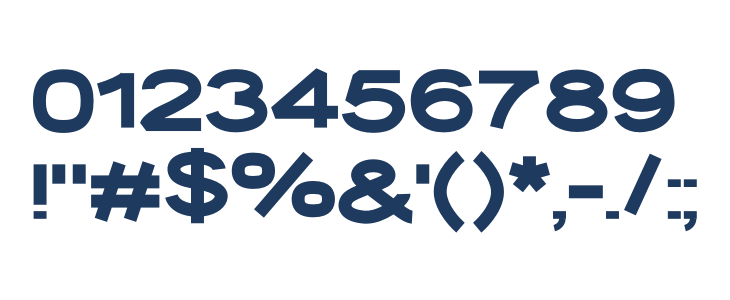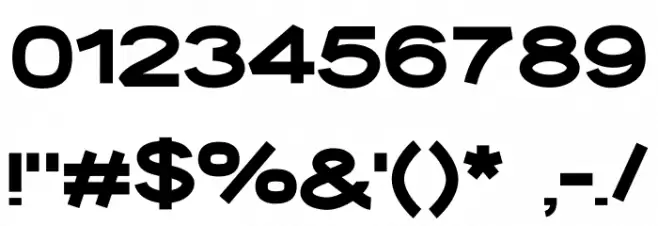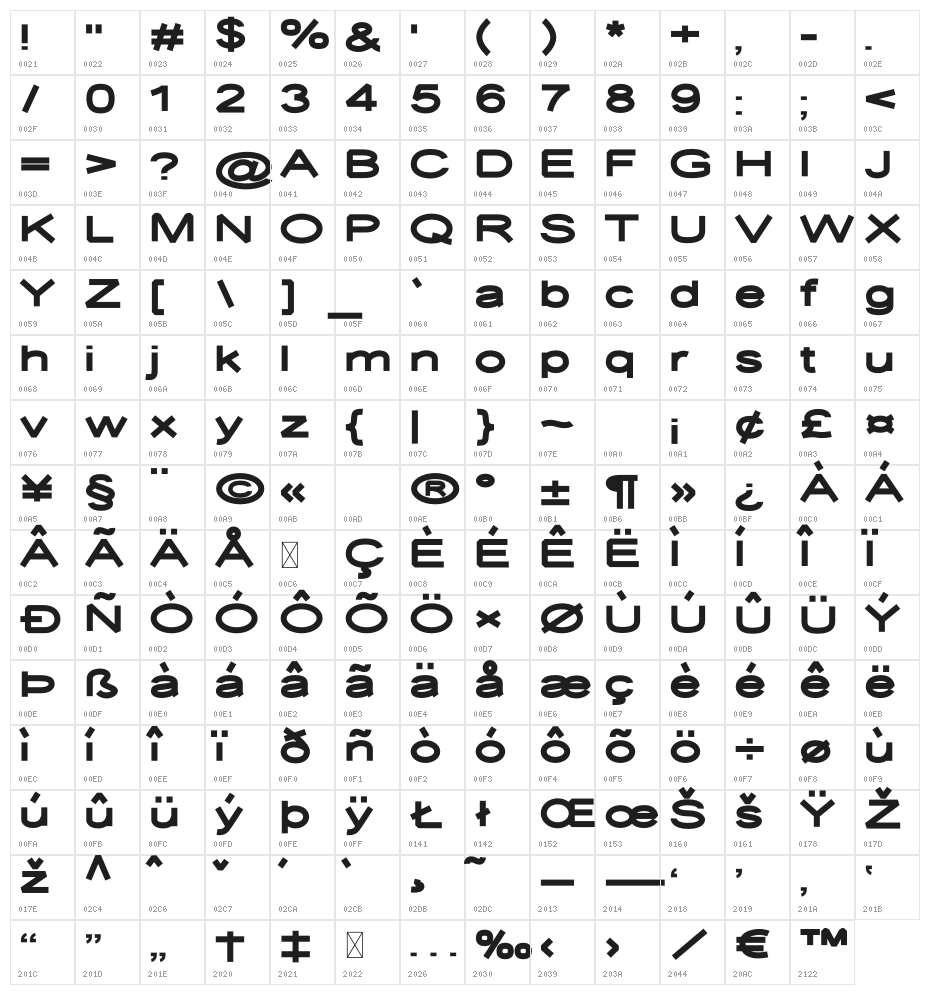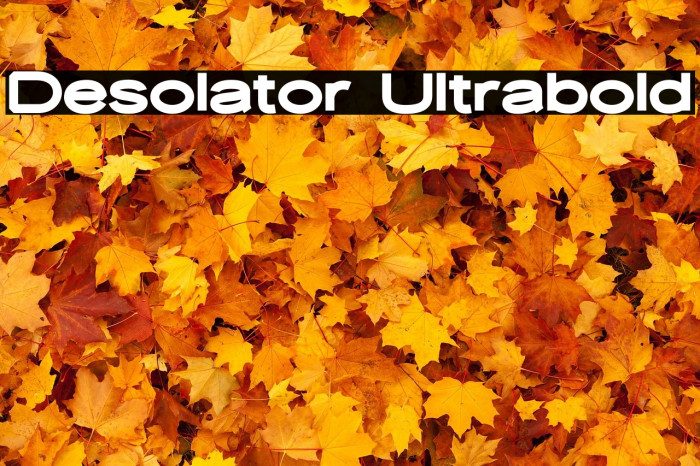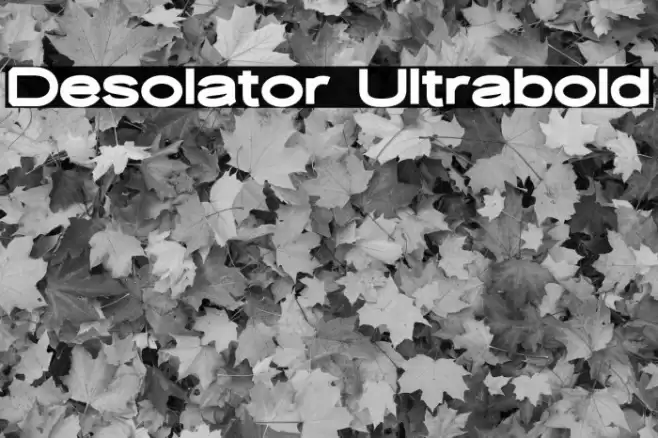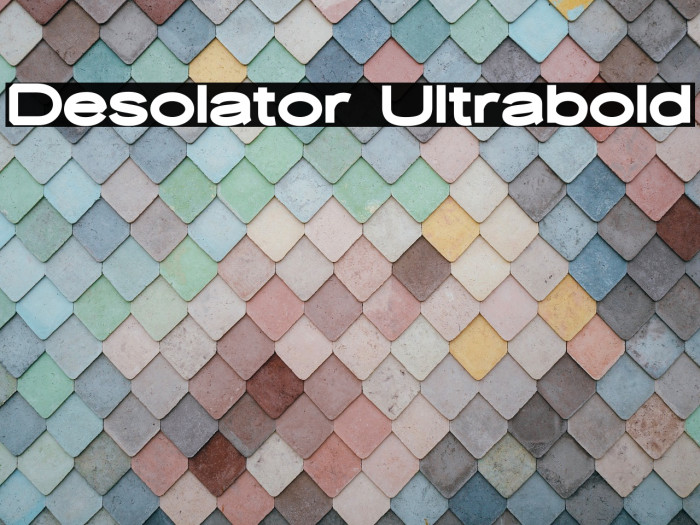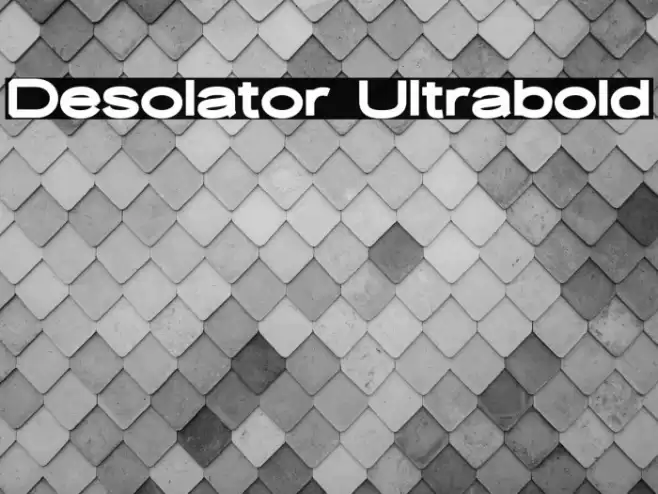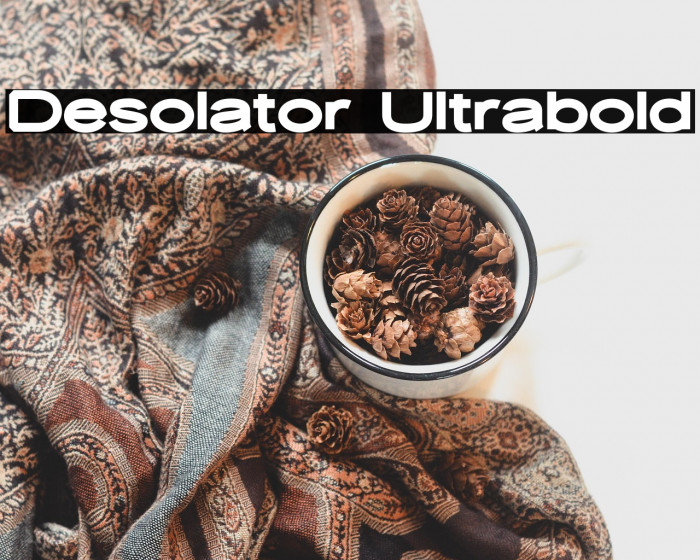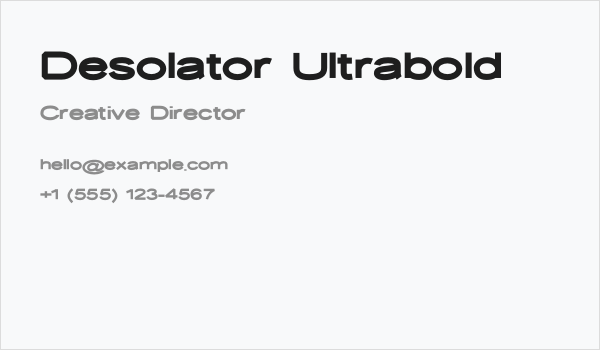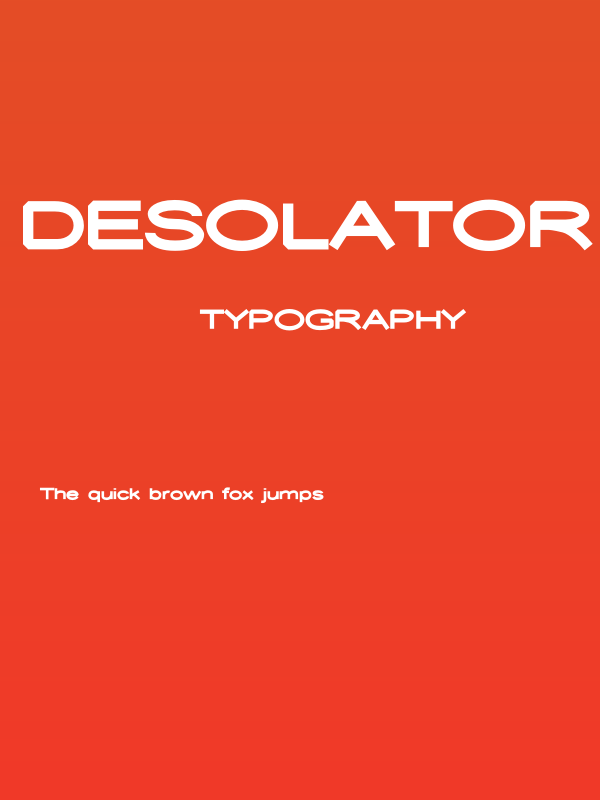
Desolator Ultrabold Font
Desolator Ultrabold Description
This font exhibits a bold and modern aesthetic with a geometric sans-serif style. The characters are uniformly thick, providing a strong and impactful presence. The uppercase letters are slightly wider, giving them a commanding appearance, while the lowercase letters maintain a consistent roundness that adds to the overall balance. The numerals are clear and bold, ensuring readability. Special characters are designed with the same boldness, making them stand out. The font's clean lines and lack of serifs contribute to its contemporary feel, making it suitable for various digital and print applications.